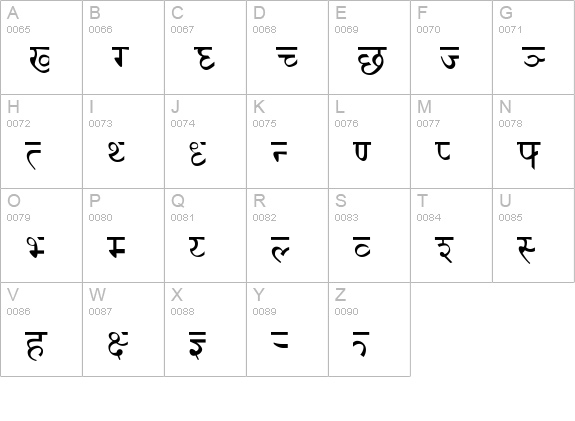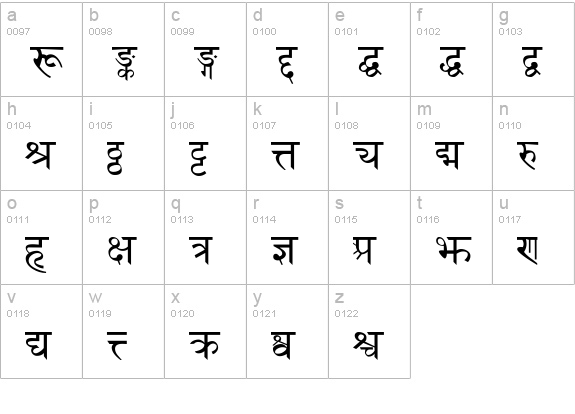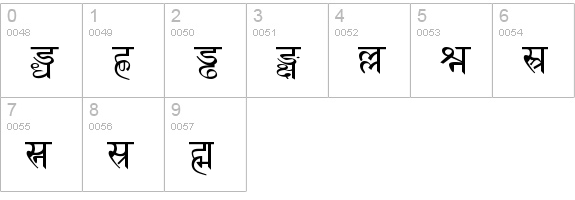
Sanskrit Font Details
Introducing the exquisite Sanskrit font, a mesmerizing blend of tradition and elegance. This font captures the essence of the ancient language and brings it to life on your digital platform. With its intricate strokes and delicate curves, each character reflects the rich history and cultural significance of Sanskrit. But what sets this Sanskrit font apart is its availability for free download at FontsMarket.com. Yes, you read that right - this stunning font can be yours without any cost. Now, you can effortlessly incorporate the beauty and spirituality of Sanskrit into your designs, presentations, or personal projects, all with just a few clicks. Whether you are a designer, a scholar, or simply someone who appreciates the beauty of different languages, this Sanskrit font will captivate your senses and transport you to a world of timeless wisdom and aesthetic charm. It is a truly priceless addition to any font collection, and the fact that it is freely available makes it even more accessible to all. Don't miss out on this opportunity to enhance your creative endeavors with the enchanting allure of Sanskrit. Visit FontsMarket.com today and download this remarkable font for free. Embrace the beauty of Sanskrit and let your designs flourish with its divine grace.